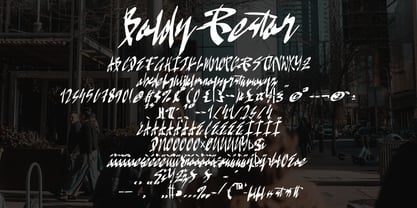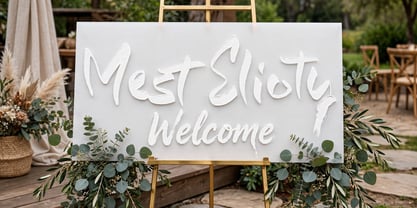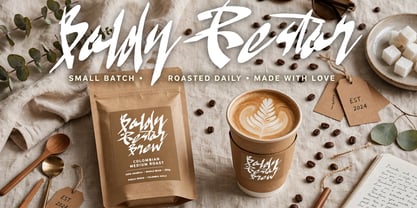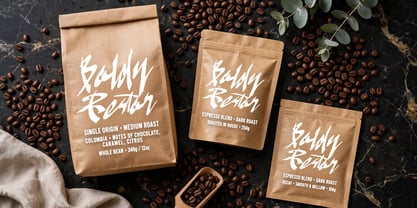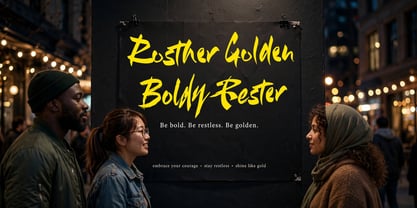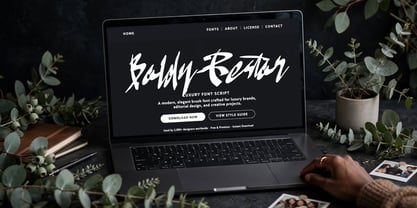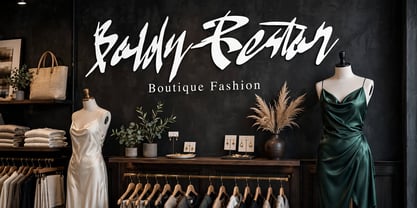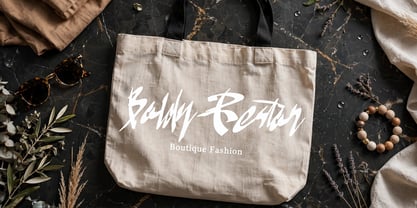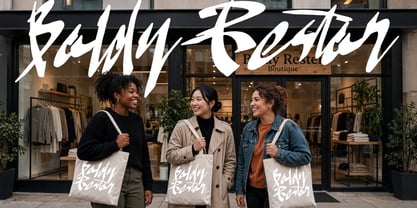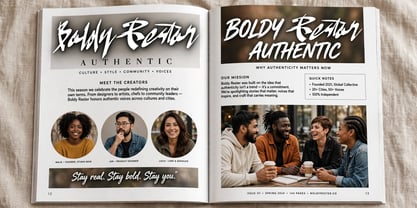
Boldy Restor
by Ayska
The Boldy Restor Font Family was designed by Dhoni Trihatmoko and published by Ayska. Boldy Restor contains 1 styles.
Introducing Boldy Restor – a remarkable fusion of modern panache and classic elegance, based on the nobility of handwritten typography. Crafted with meticulous precision, Boldy Restor radiates sophistication, infusing a dash of individuality into any digital creation. With its distinctive allure, Boldy Restor captivates audiences, breathes unique charm into your digital journal, customizes your invites, and infuses heartfelt emotion into your celebratory cards. Revel in the timeless appeal and innovative craftsmanship of Boldy Restor, an accentuating element for your photo collections or custom decor. Use it to transform mundane visuals into mesmerizing oeuvres d’art, lending an element of enchantment to your digital works. Embrace the intrigue of Boldy Restor, your navigational compass in the journey towards crafting memorable masterpieces. Dive into the inspirational depths of Boldy Restor, channeling your creative energy into polished works of digital artistry.